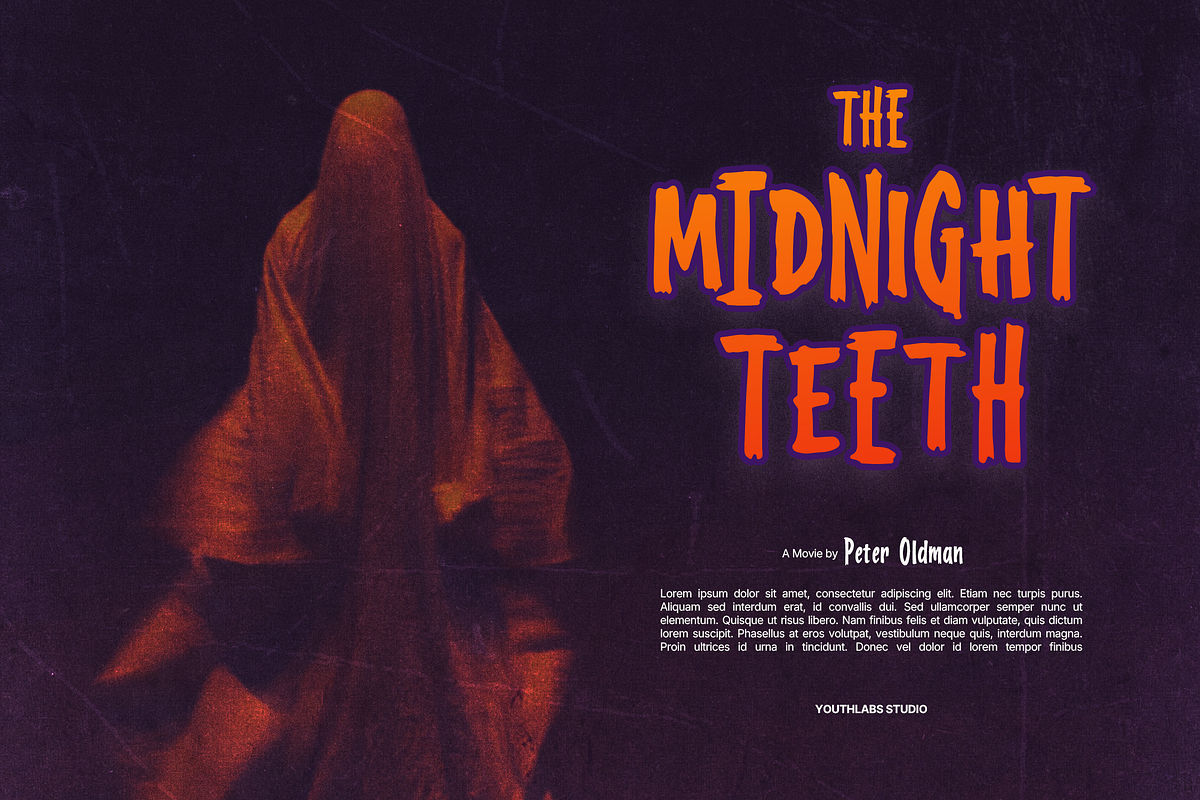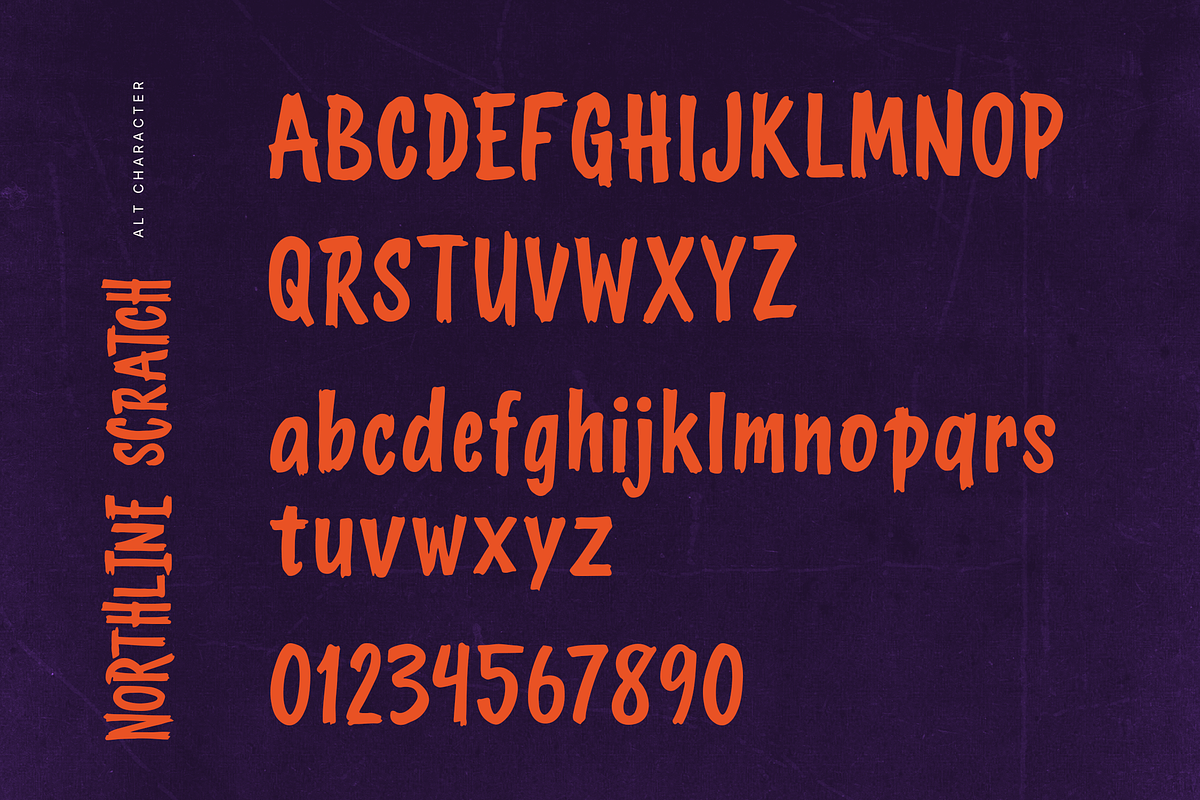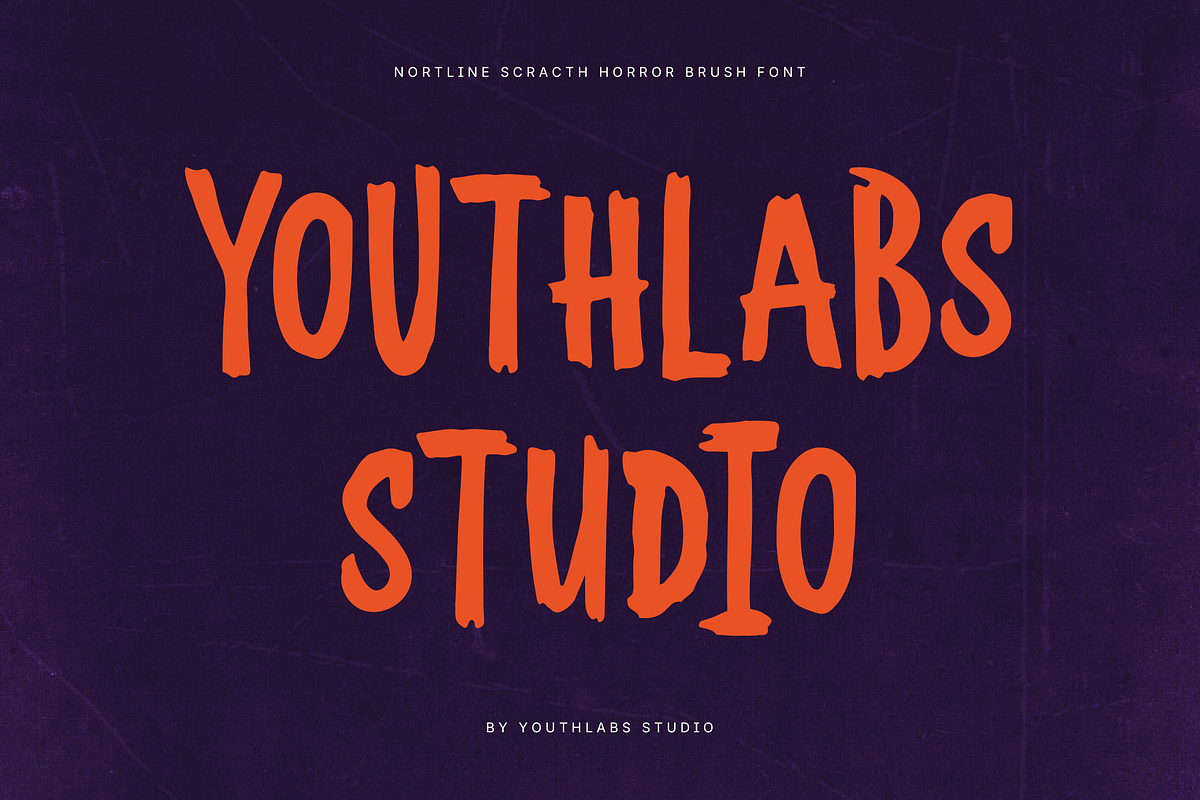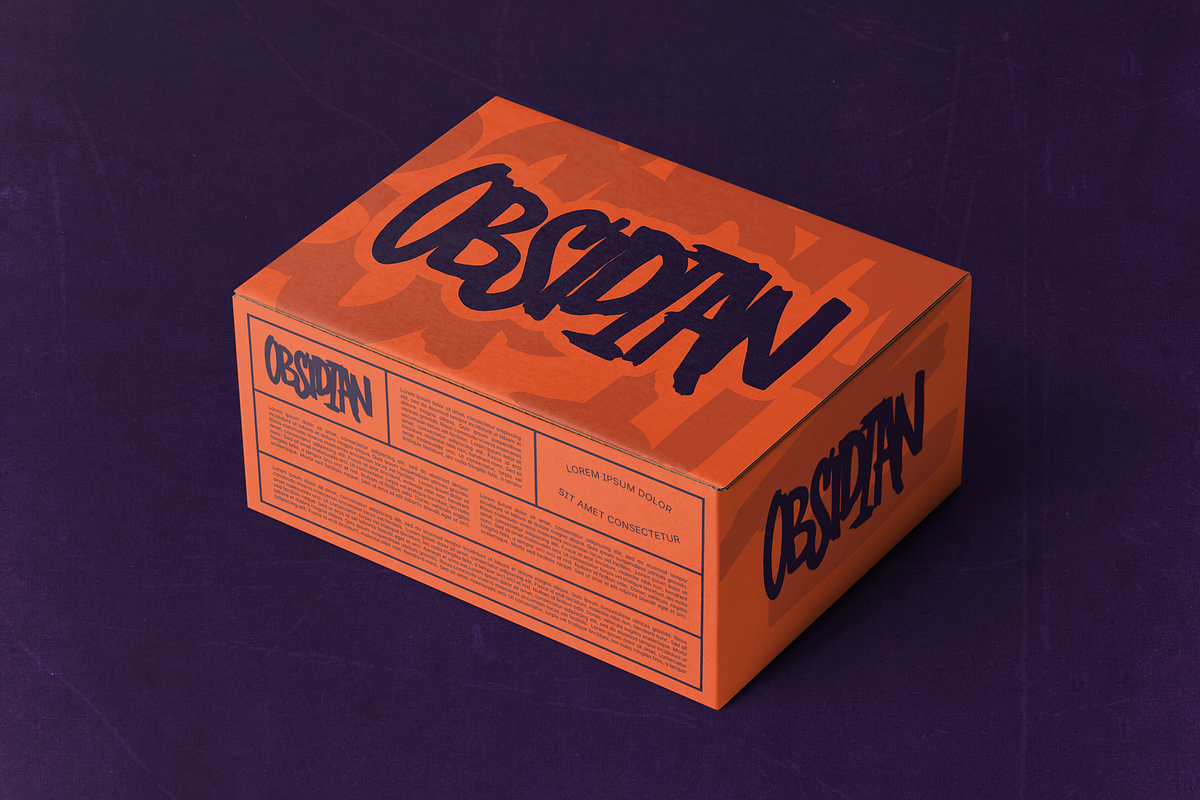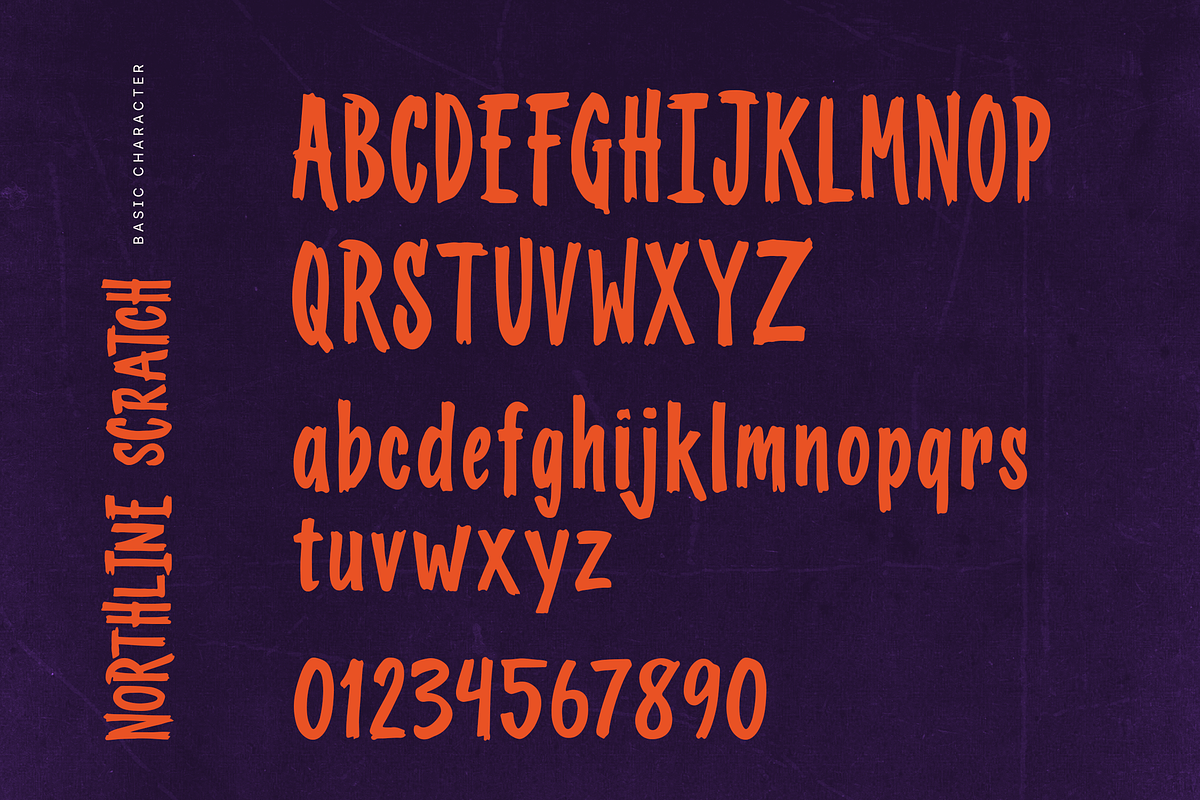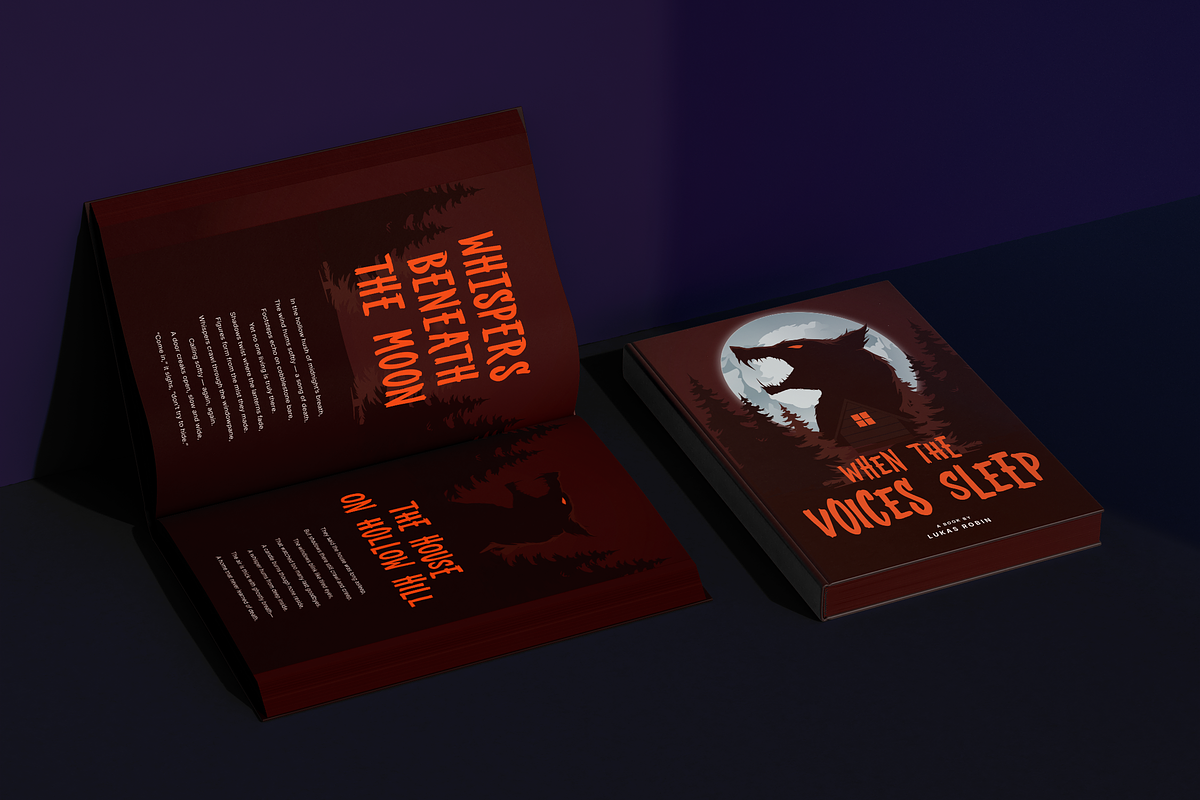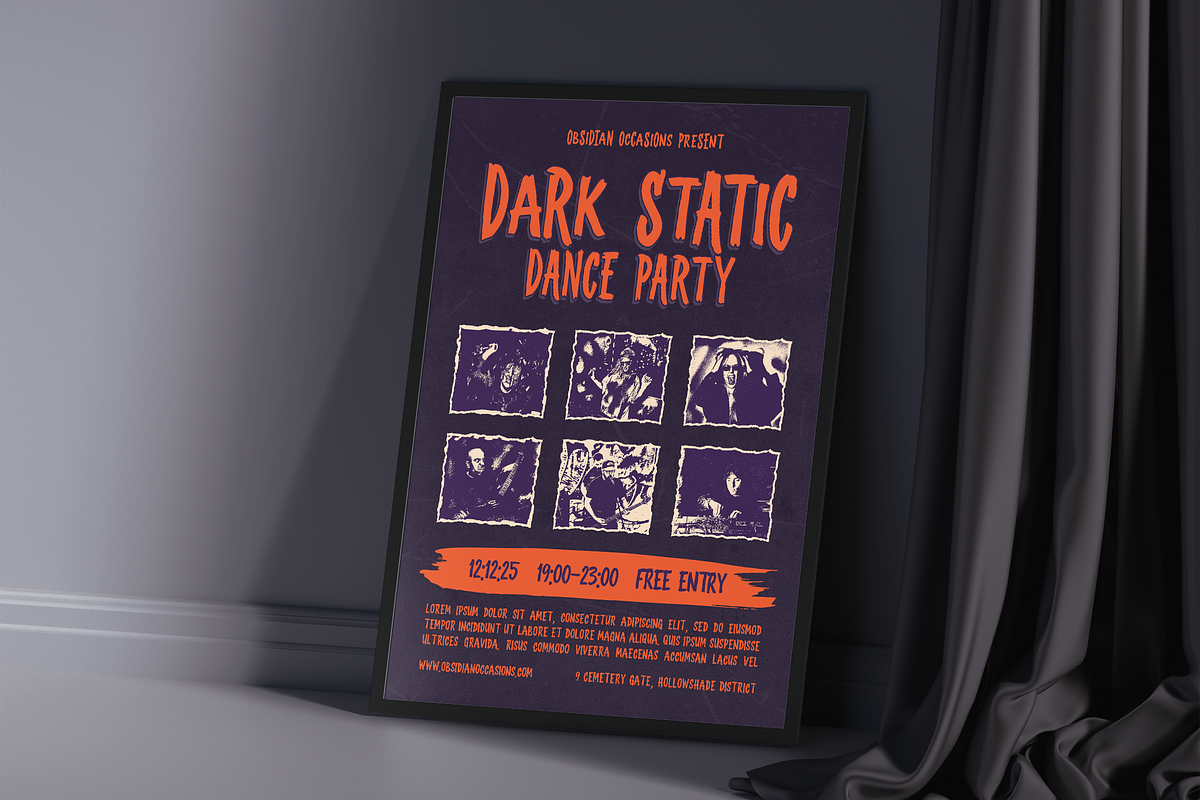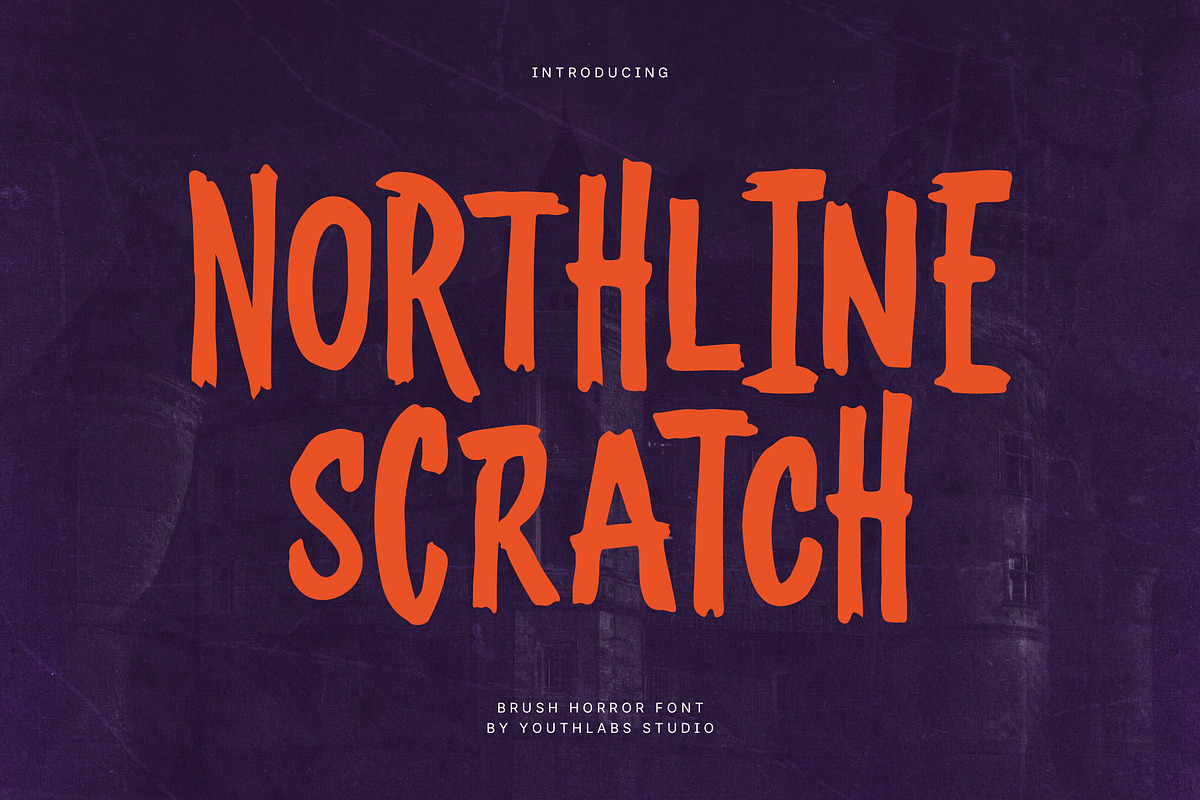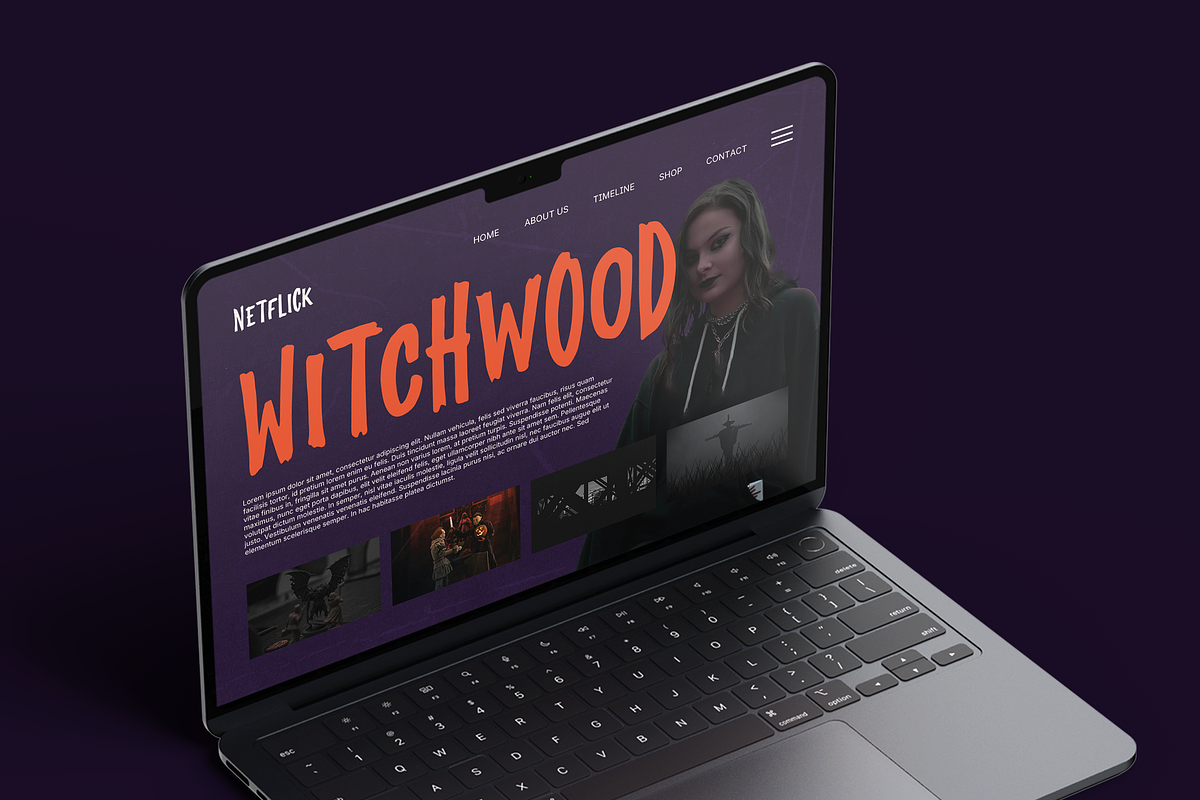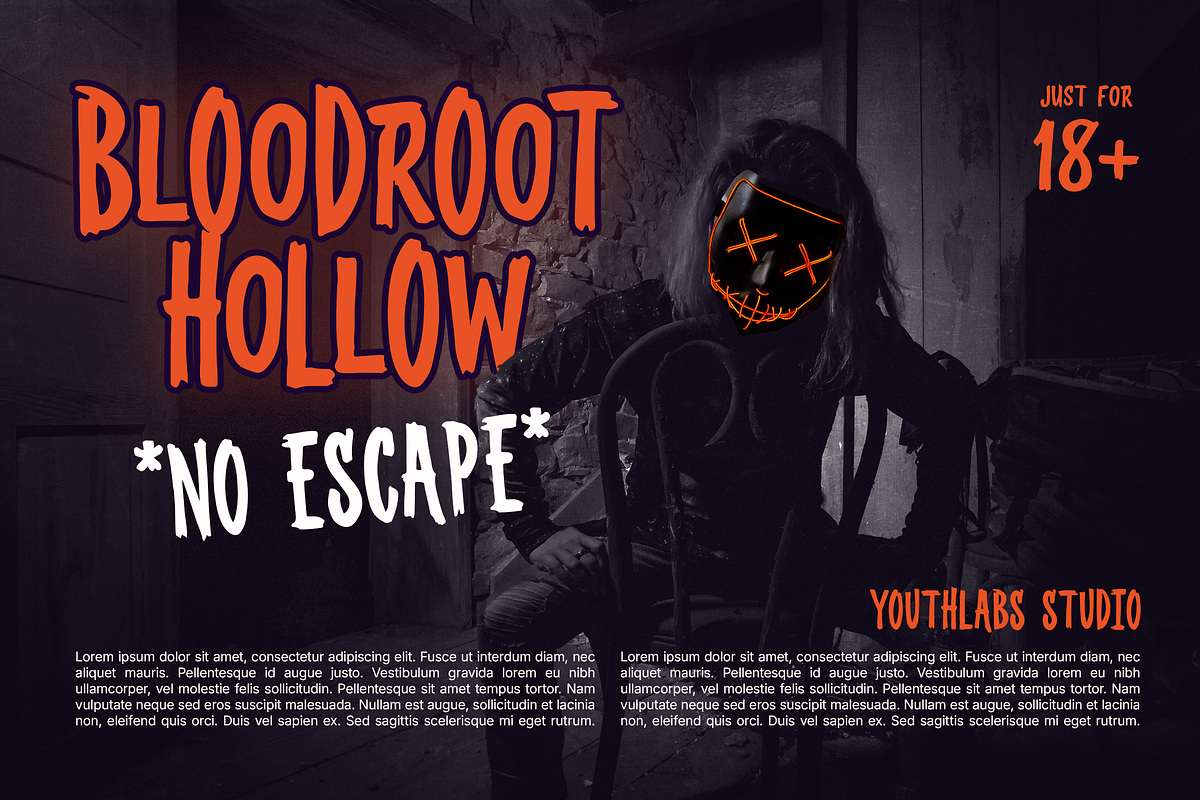
Northline Scratch – Horror Brush
Northline Scratch is a raw brush horror typeface inspired by scratched textures, hand-painted strokes, and dark cinematic atmospheres. With its jagged edges, uneven rhythm, and aggressive brush character, this font is built to amplify fear, tension, and chaos. Perfect for horror movies, Halloween designs, album covers, game titles, posters, and eerie branding, Northline Scratch delivers a powerful handcrafted look that feels intense, wild, and unapologetically bold.
- Brush horror display style
- Hand-drawn scratched texture
- Raw and aggressive letterforms
- Uneven baseline for organic feel
- Strong impact for dark themes
- Ideal for horror & thriller designs
- Perfect for posters, games & titles
- Cinematic and edgy personality
- Uppercase & lowercase support